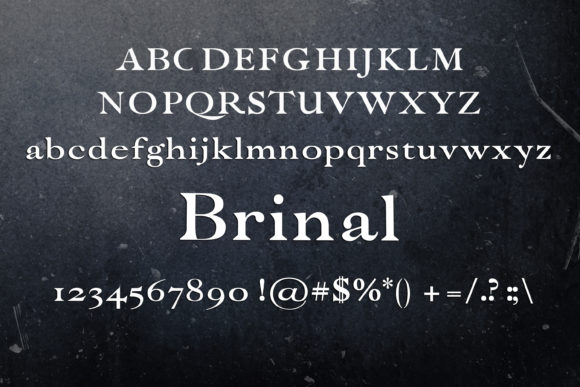
The Joy of Typography: Discovering the Brinal Font
Have you ever been in the middle of a creative project, struggling to find the perfect font to bring your vision to life? The frustration of scrolling through endless options, only to end up with something that just doesn’t feel quite right. We’ve all been there. But what if we told you that there’s a font out there that’s sure to capture your heart and elevate your design game?
Meet the Brinal Font, a charming serif font that’s perfect for adding a touch of whimsy to your next project. With its playful style and unique flair, Brinal Font is the perfect choice for designers looking to add some personality to their work. Whether you’re designing a brand identity, a logo, or a marketing campaign, Brinal Font is sure to bring a smile to your face and a touch of sophistication to your design.
- Language Support: Brinal Font supports a wide range of languages, including Latin, Cyrillic, and Greek alphabets.
- Unique Characteristics: Brinal Font features a unique blend of modern and traditional design elements, with clean lines, geometric shapes, and subtle ornamentation.
Overall, I’d say Brinal Font is a solid choice for typography enthusiasts. Here are some aspects that caught my attention:
- ✨ Unique and elegant feel: Brinal Font has a distinctive style that sets it apart from more common sans-serif fonts. Its curves and lines work well together to create a visually appealing effect.
- ✨ Great for headings: The font’s bold and confident nature makes it perfect for headings, titles, and other prominent text.
- ✨ Versatile: Brinal Font can be used in a variety of contexts, from digital interfaces to print materials.
- ⚠️ Readability in small sizes: While Brinal Font looks great at larger sizes, it can become difficult to read when used in smaller sizes, such as in body text.
- ⚠️ Limited character set: Brinal Font may not include some special characters or languages, which could be a problem for certain applications.
Overall, I’d say Brinal Font is a great choice for designers who want to add some flair to their typography. Just be mindful of its limitations, and use it sparingly to avoid readability issues.
For best results, use the Brinal Font for headings and titles, and a clean sans-serif font for body text.
The Brinal Font is ideal for:
1. Branding and identity design.
2. Magazine and newspaper headlines.
3. Social media graphics and posts.
4. Digital marketing materials.
Alternatives to Brinal Font
Brinal Font is a popular sans-serif font, but it may not be suitable for every design project. Here are a few alternatives for designers.
Open Sans is a modern sans-serif font that is highly legible and versatile. It is a great choice for body text and is suitable for both digital and print media. Open Sans is more condensed than Brinal Font, making it ideal for use in smaller spaces.
Comparison: While Brinal Font has a more rounded feel, Open Sans has a more geometric look. Open Sans is also more condensed, making it a better choice for use in smaller spaces.
Lato is a clean and elegant sans-serif font that is perfect for use in corporate and modern designs. It is highly legible and has a friendly feel to it. Lato is a bit more condensed than Brinal Font, but has a more rounded feel.
Comparison: While Brinal Font has a more geometric look, Lato has a more rounded feel. Lato is also more condensed, making it a better choice for use in smaller spaces.